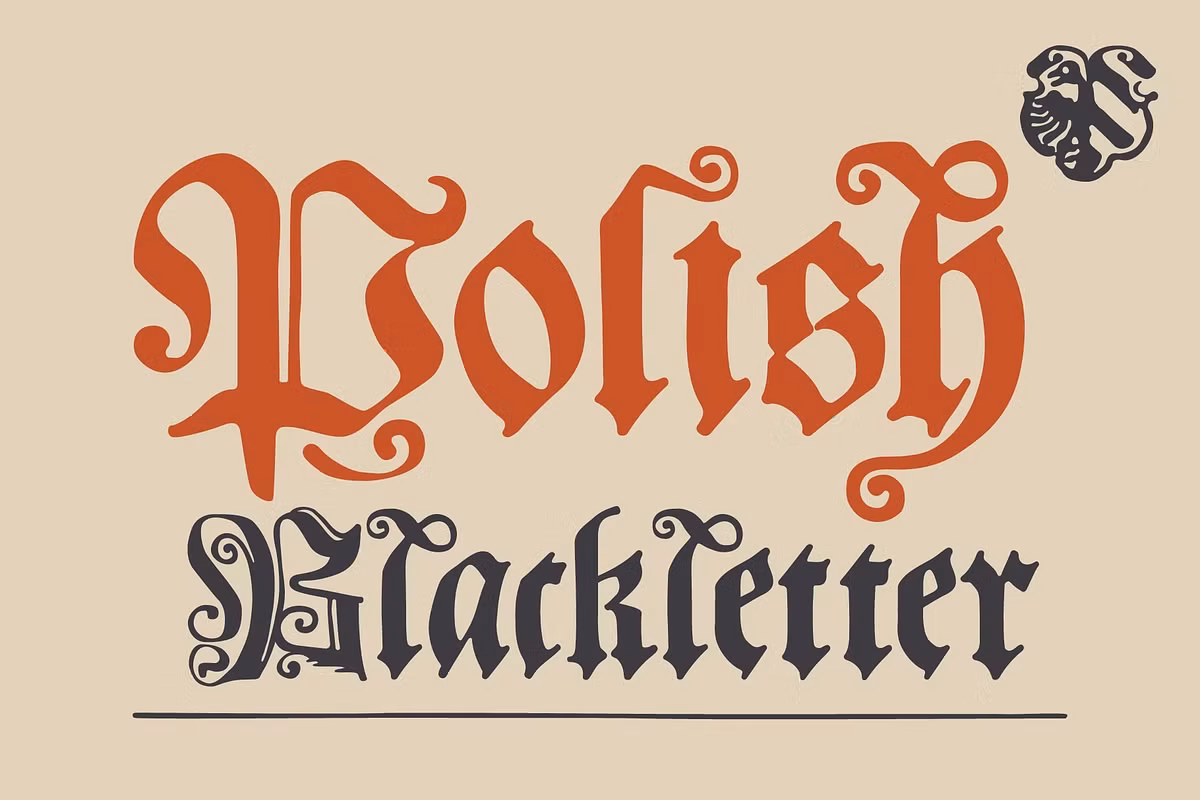
Polish Blackletter Schwabacher font Free Download
Polish Blackletter Schwabacher Font Free Download
Please note, to use this font for commercial purposes, you must purchase the full version. Polish Blackletter Schwabacher is a traditional blackletter font with a unique, Polish twist. With its intricate, bold letterforms and historical charm, this font is perfect for creating vintage-style logos, posters, invitations, and branding projects that require a classic, old-world aesthetic. Whether you're designing for a medieval-themed event, a historical brand, or a vintage publication, Polish Blackletter Schwabacher adds a regal and sophisticated touch to your work. Test it out and enjoy free download access for personal use. Experience the timeless elegance of Polish Blackletter Schwabacher Font Free Download before purchasing the commercial license. Add a historical, ornate flair to your designs with Polish Blackletter Schwabacher.